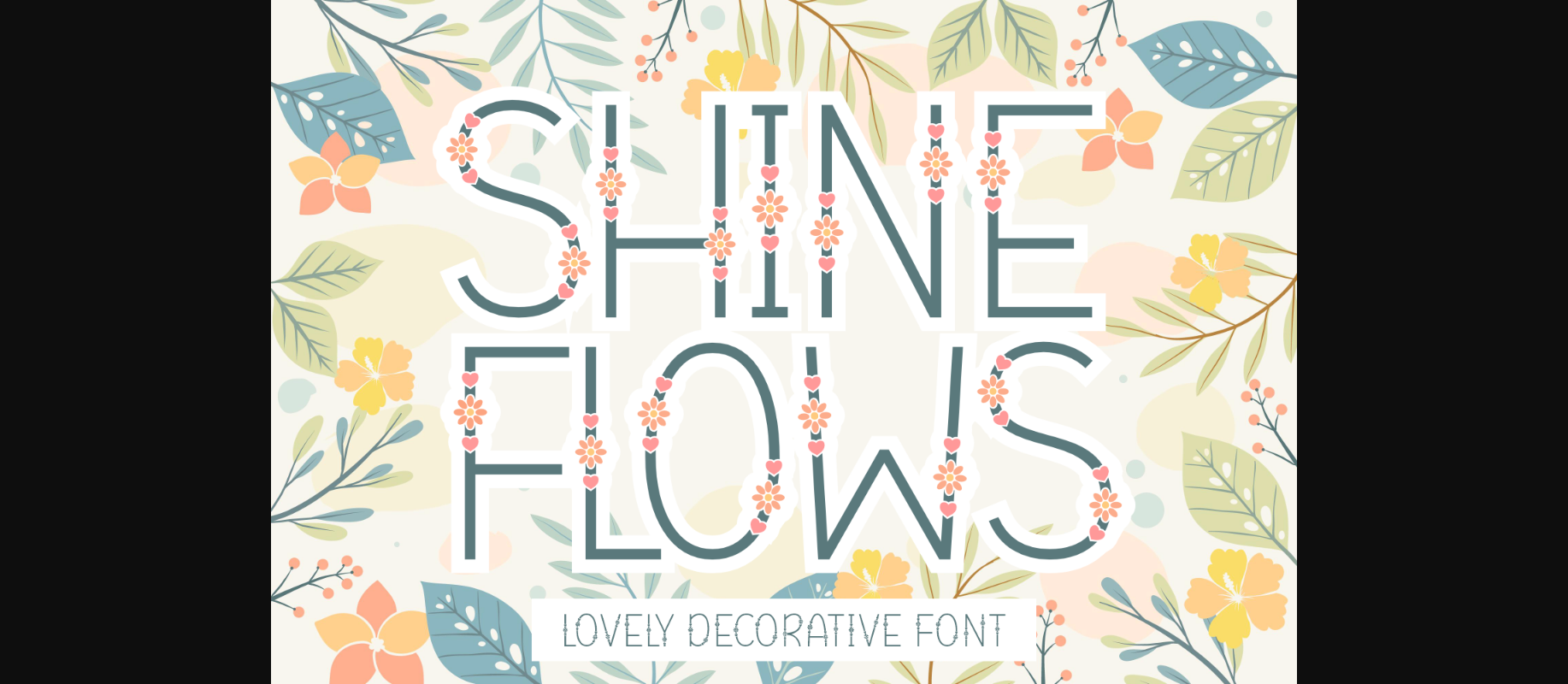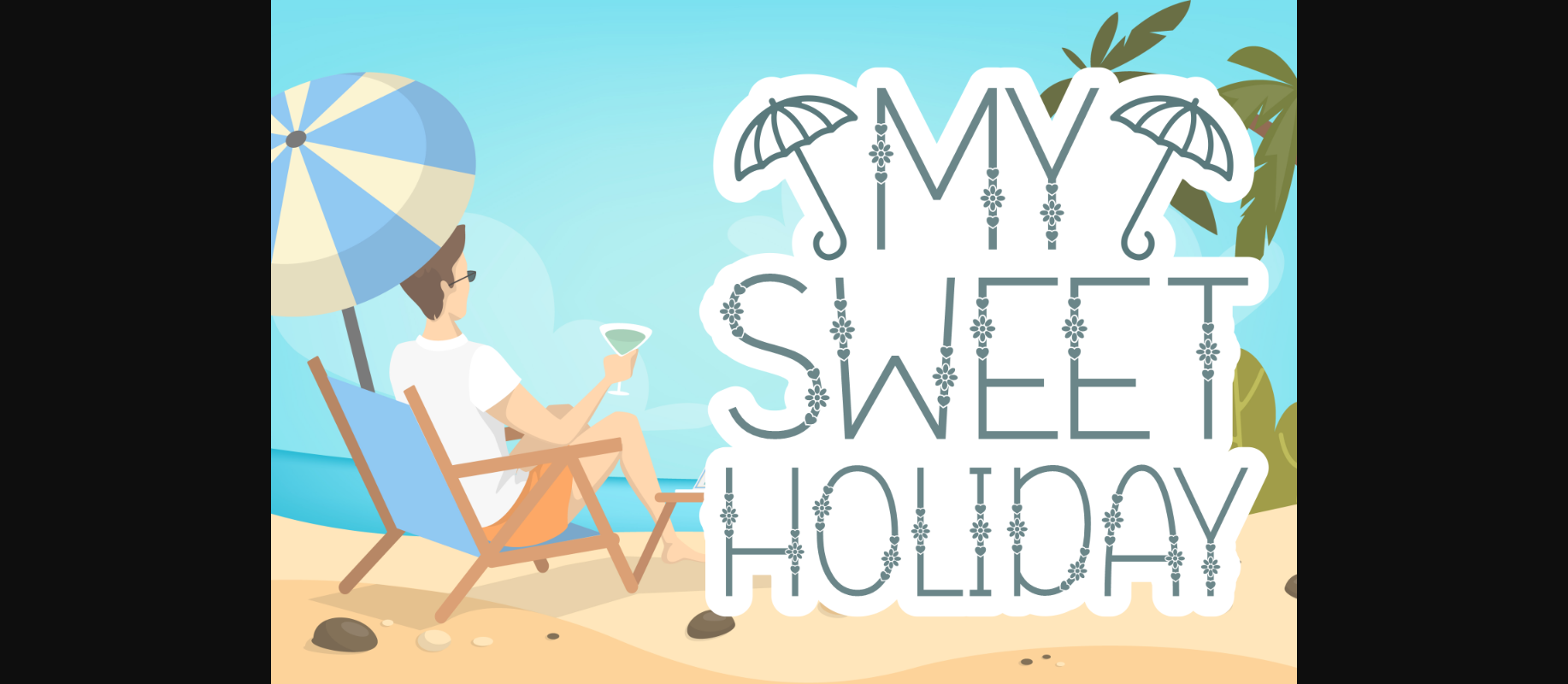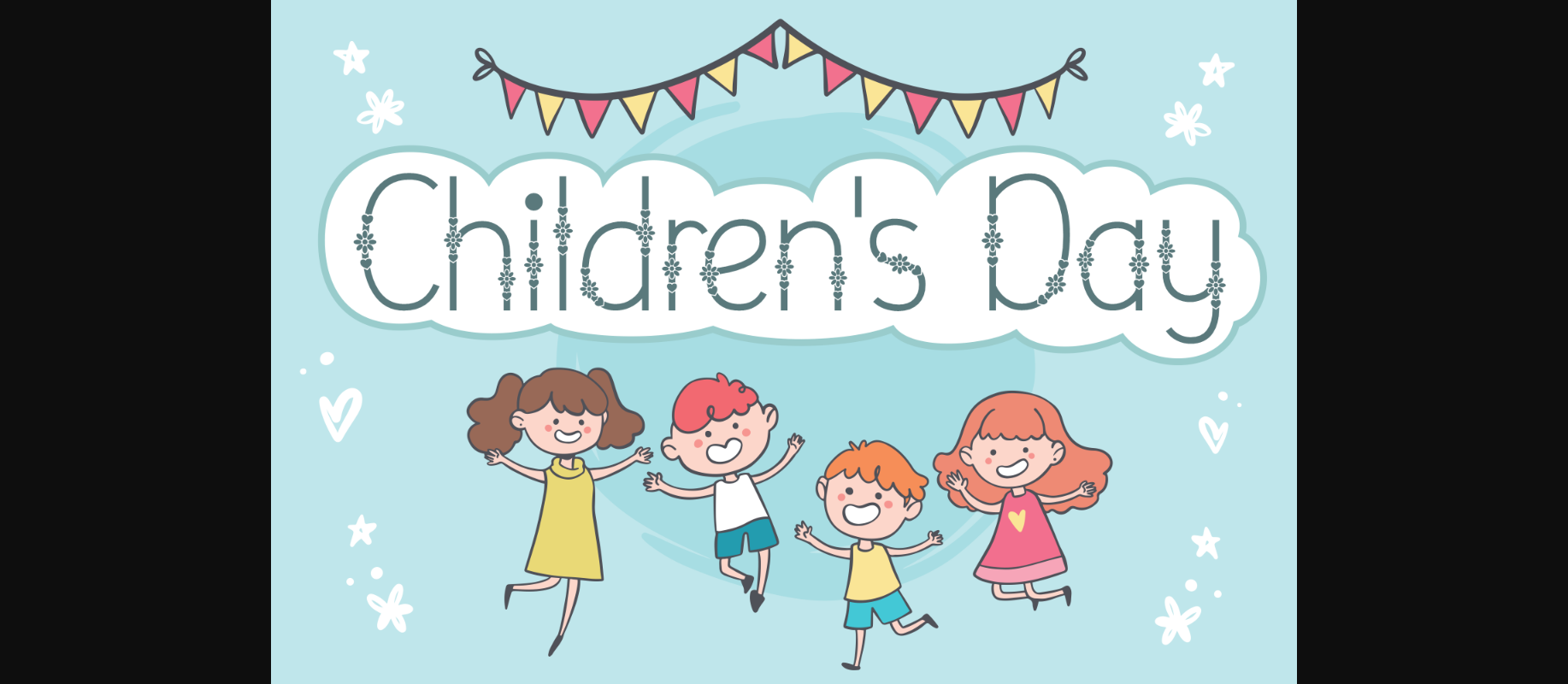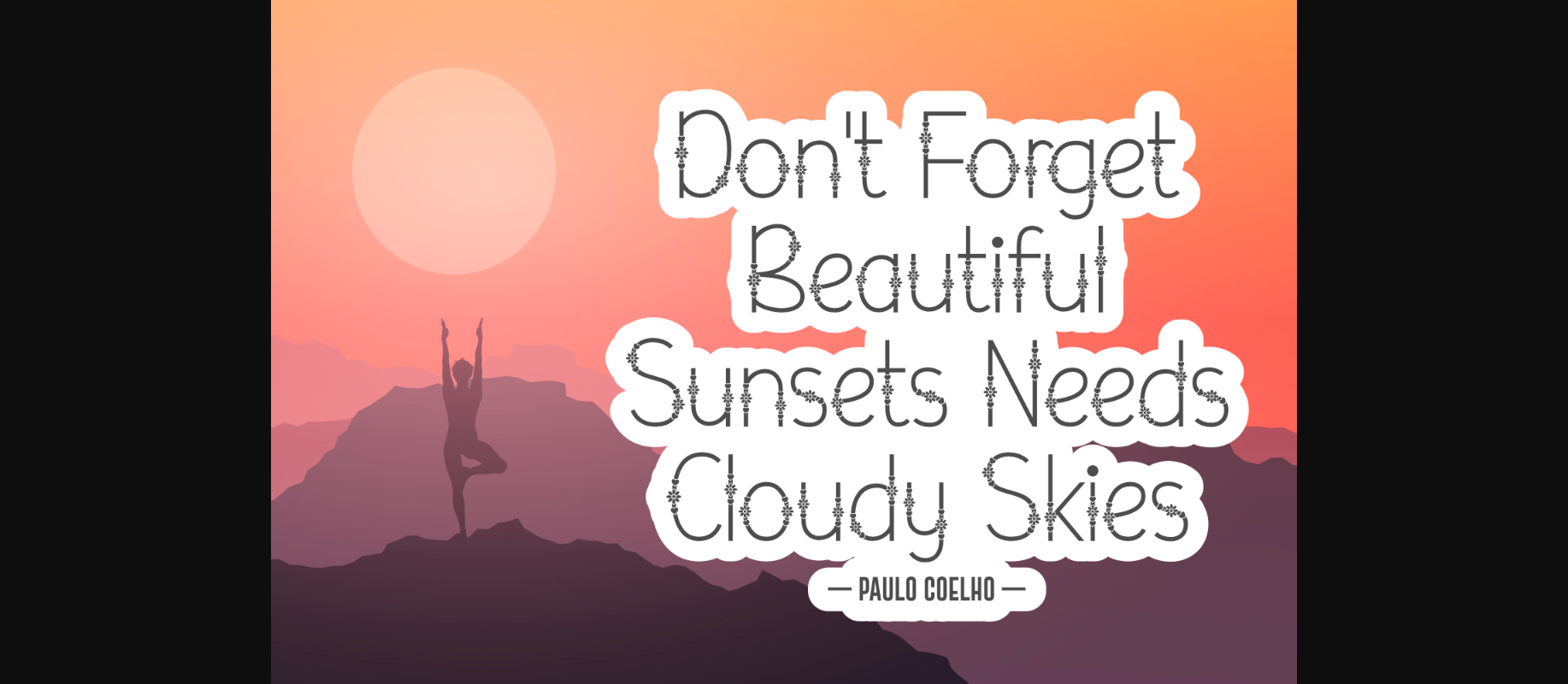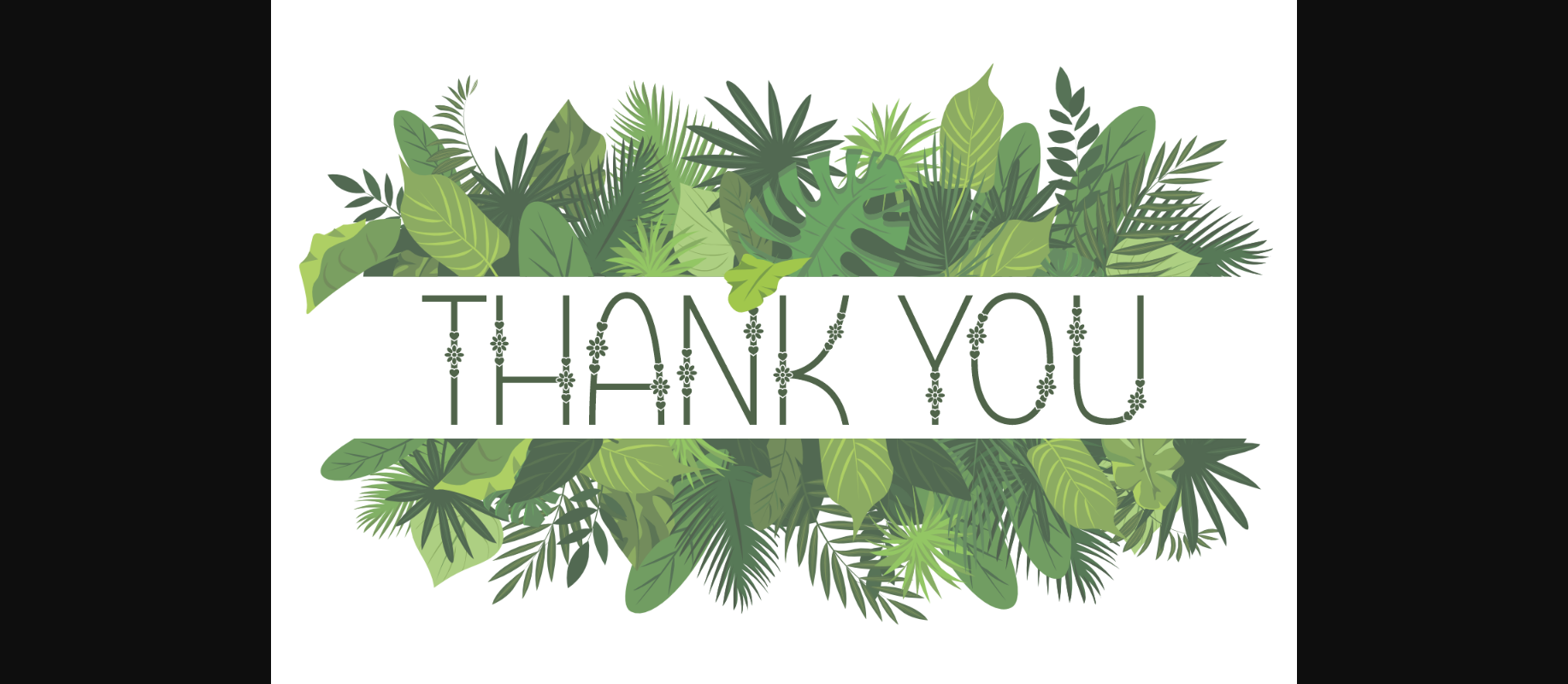
HomeDecorative FontsShine Flows Font Decorative Fonts Shine Flows Font FacebookXPinterestWhatsApp 1 of 7 ... Shine Flows Font Poster 2... Shine Flows Font Poster 3... Shine Flows Font Poster 4... Shine Flows Font Poster 5... Shine Flows Font Poster 6... Shine Flows Font Poster 7... About Shine Flows Font Shine Flows is a lovely decorative font with pretty flowers and heart details on each character. You can create summer cards, posters, birthday invitations, flower shop designs, children-themed designs, quotes, etc. DOWNLOAD NOW People also explored marselena shawthegn Gomsky Font Sweetyoung Font Daily Kitchen Font Fibre Extended Font Welcome Wedding Font Childlike Fireworks Font Rouchont Font Spring Flower Font 310 0 TagsShine Flows Font Previous articleSquirrel Duo FontNext articleHot Font LEAVE A REPLY Cancel reply Comment: Please enter your comment! Name:* Please enter your name here Email:* You have entered an incorrect email address! Please enter your email address here Website: Save my name, email, and website in this browser for the next time I comment. Personal Use Free Avagan Personal Use Free Read more about this font Heart Personal Use Free Read more about this font Just Smile Personal Use Free Read more about this font Adriator Personal Use Free Read more about this font BLOG Fonts That Capture the Spirit of New York City New York City is more than just a place—it’s an experience, a rhythm, a visual language... Best Fonts for YouTube Videos: Make Your Thumbnails Stand Out The 10 Best Handwriting Fonts to Add Personality to Your Designs Free vs Paid Fonts: Why Investing in Premium Fonts Is Worth It